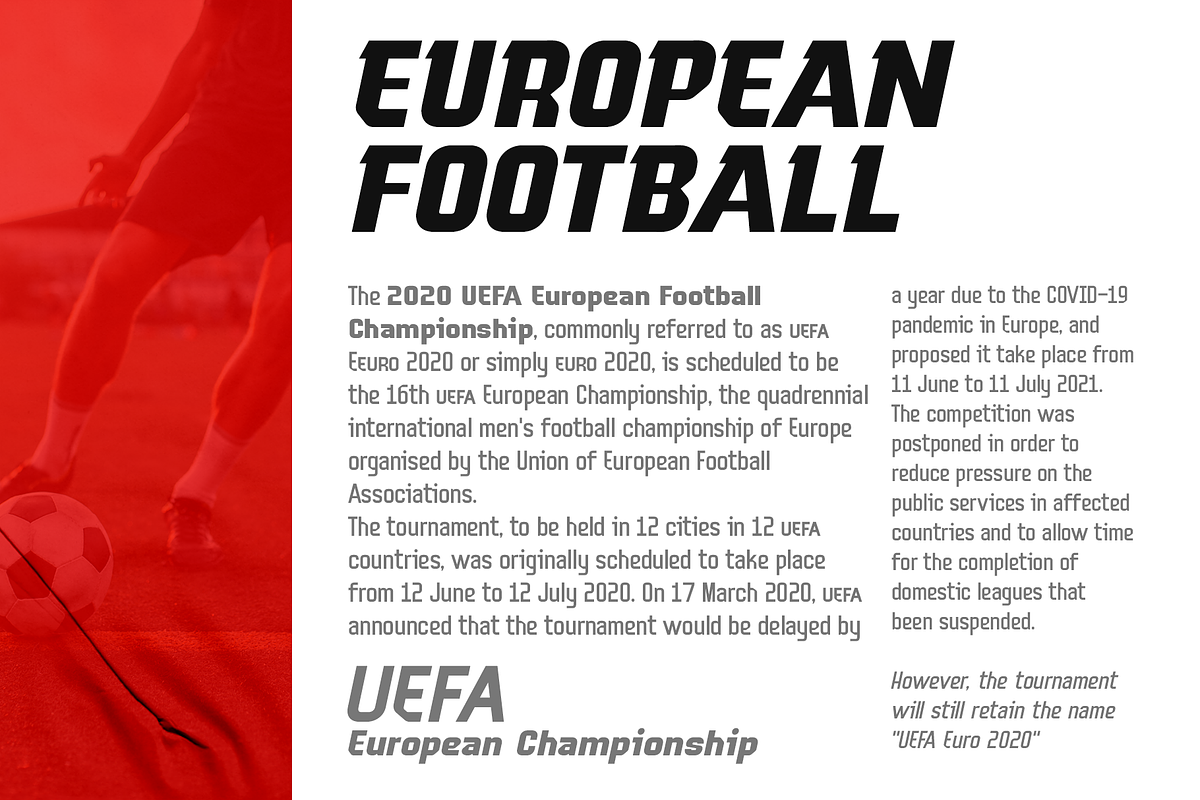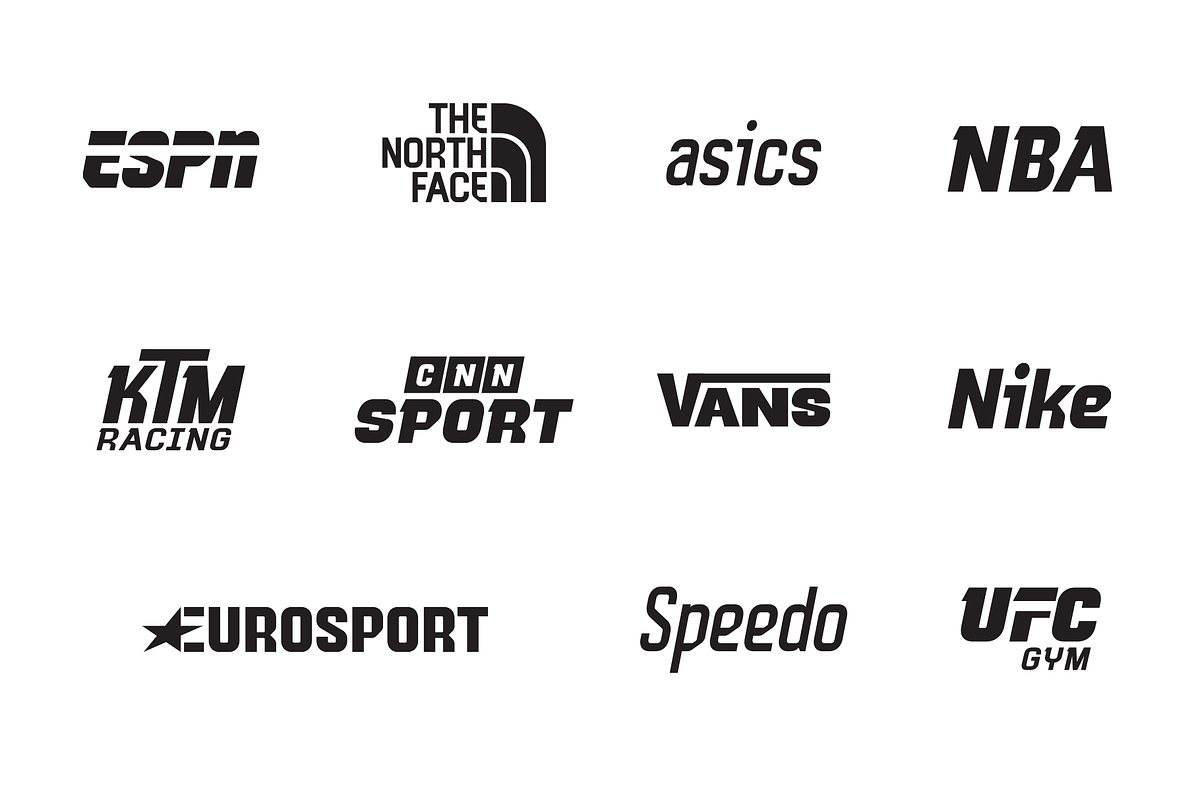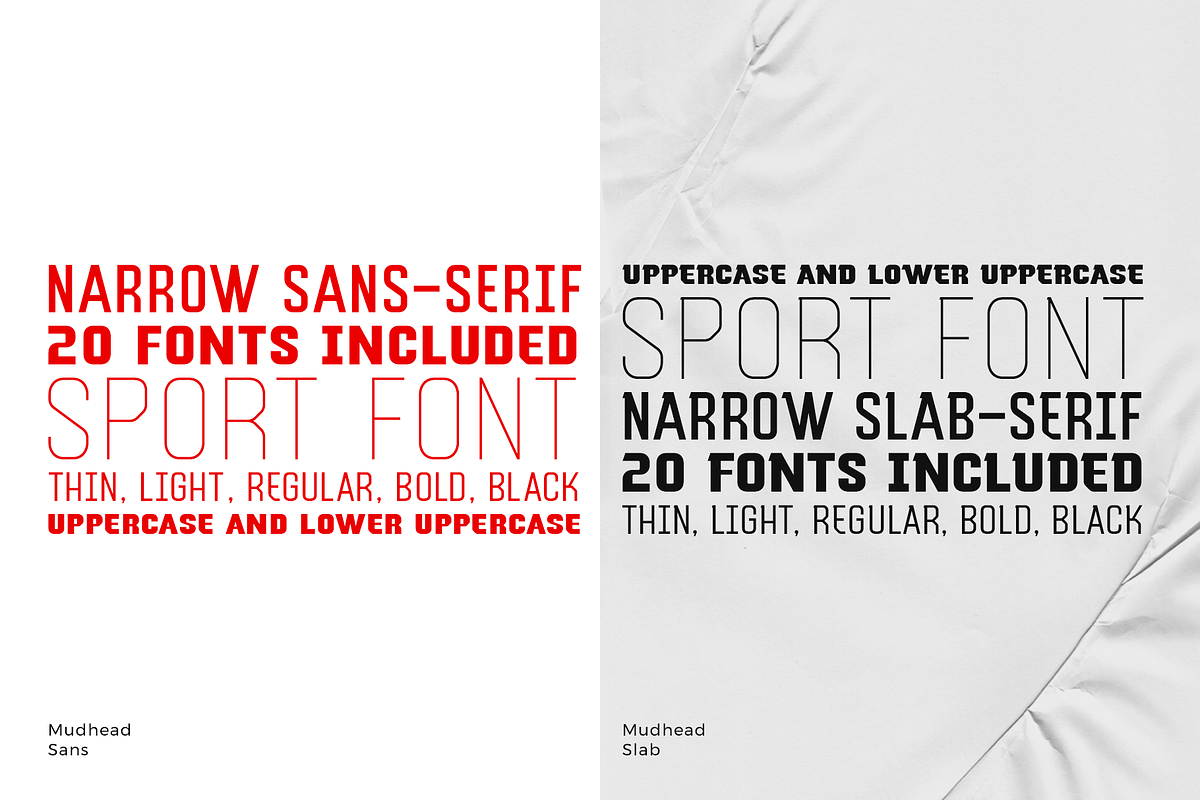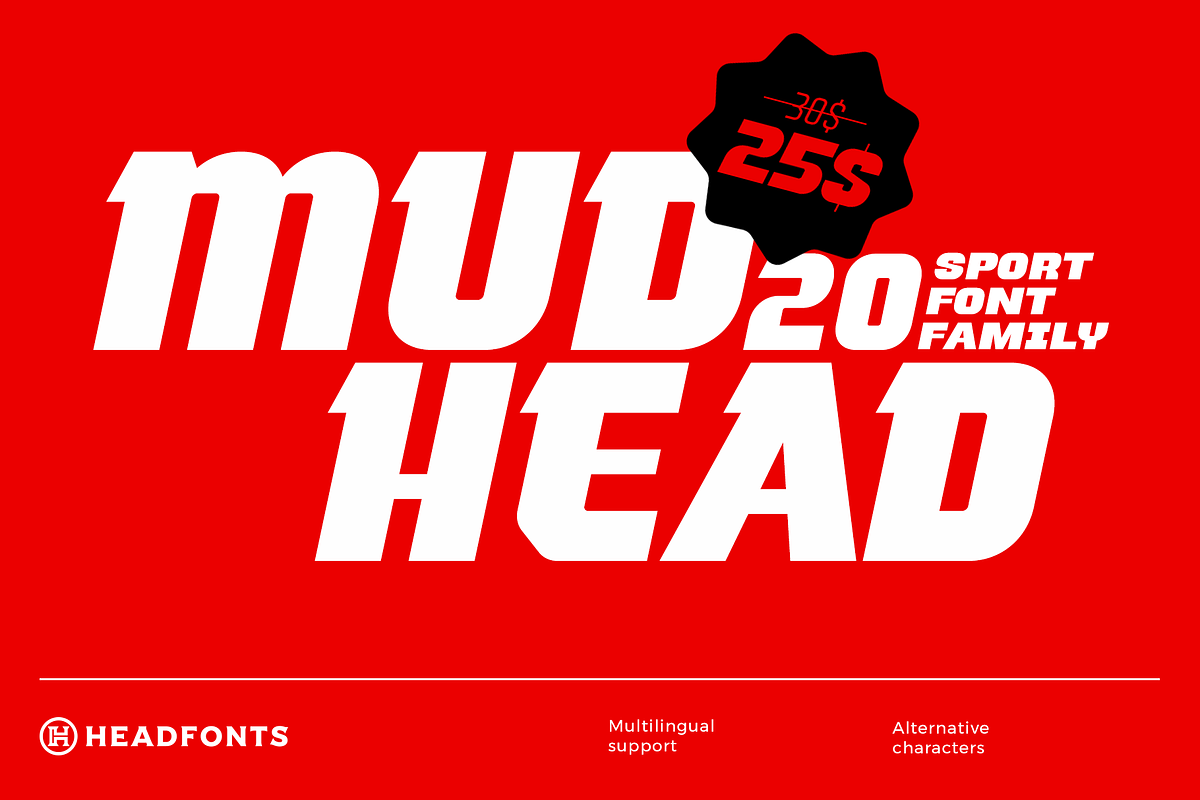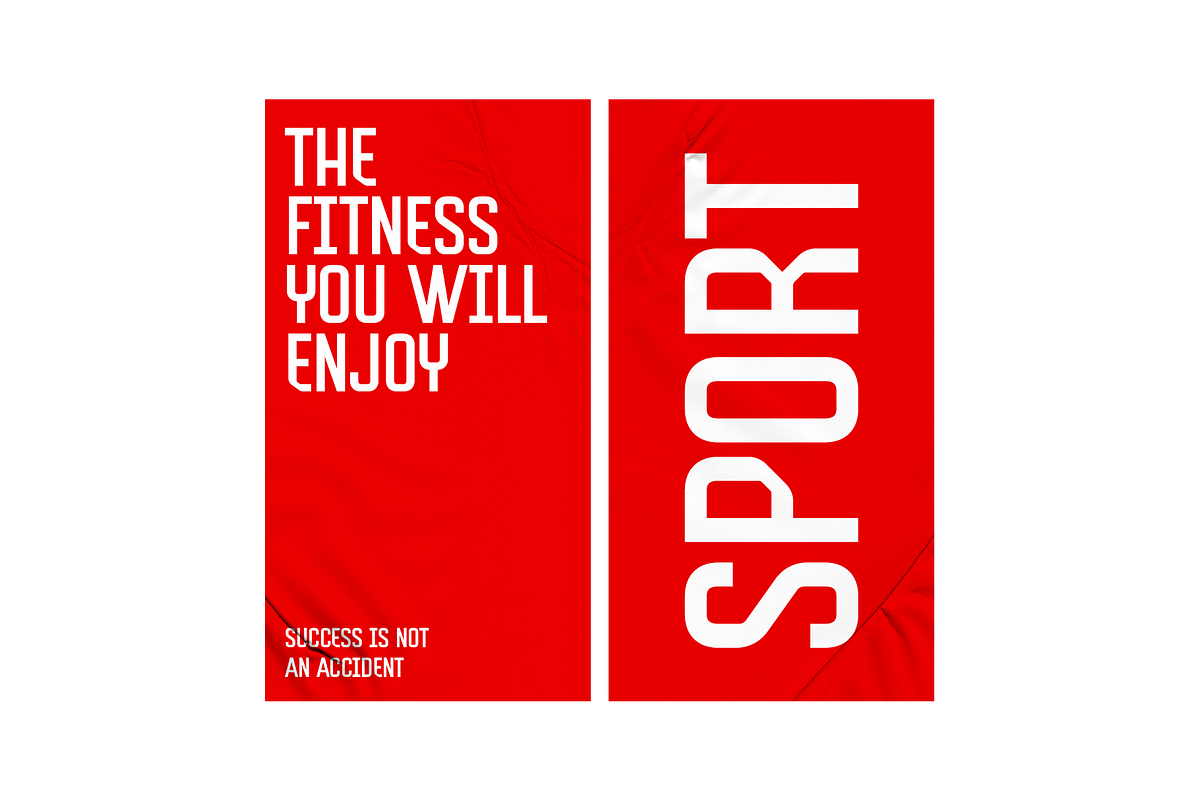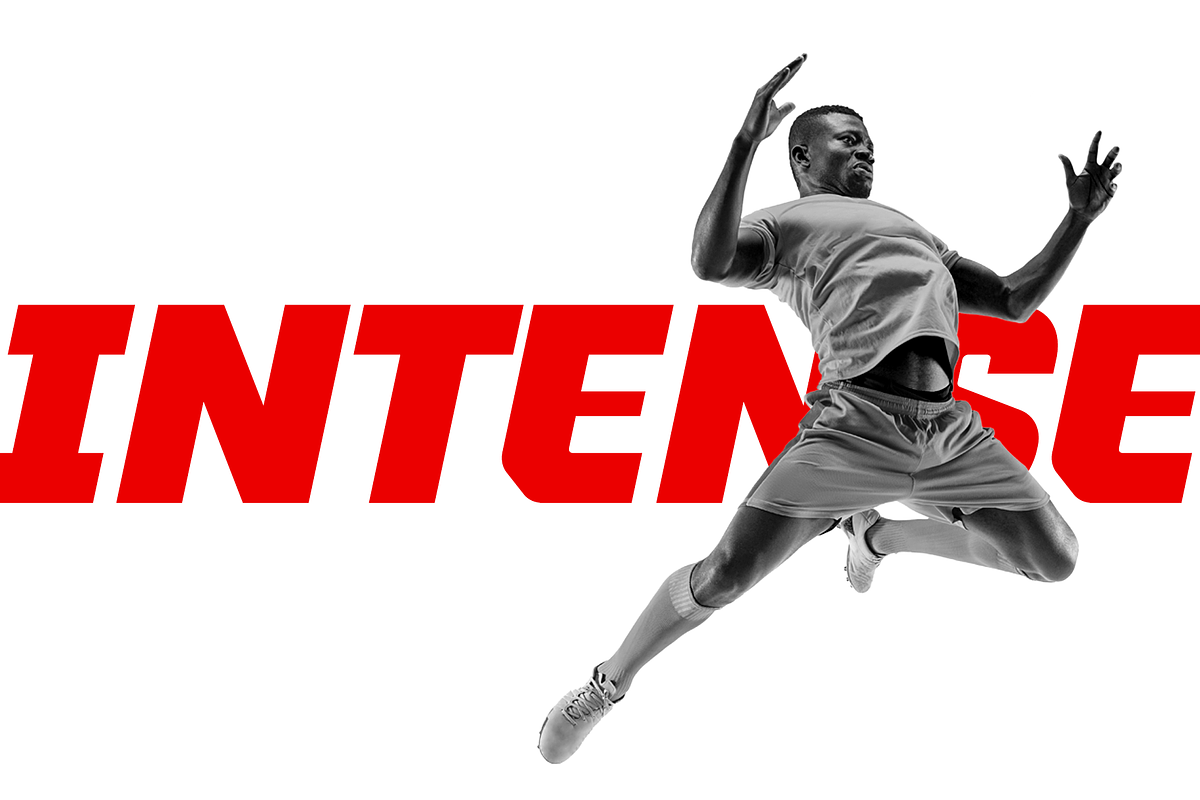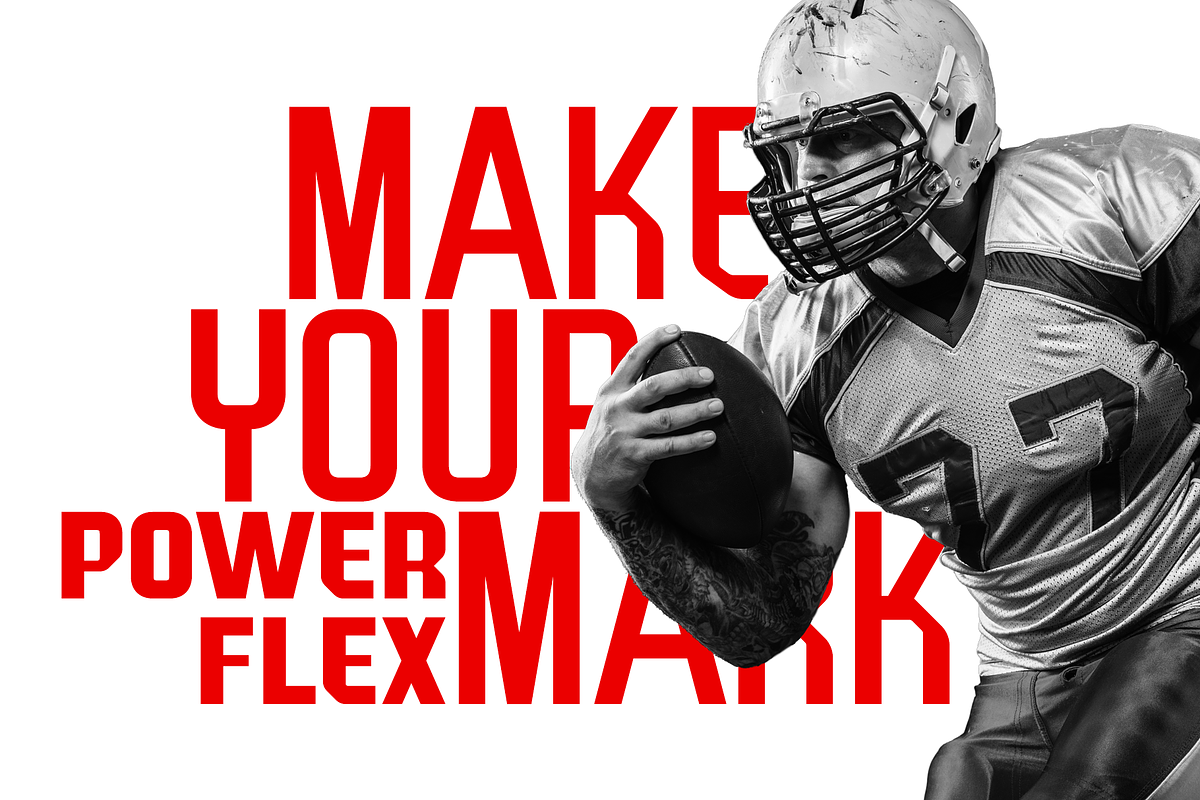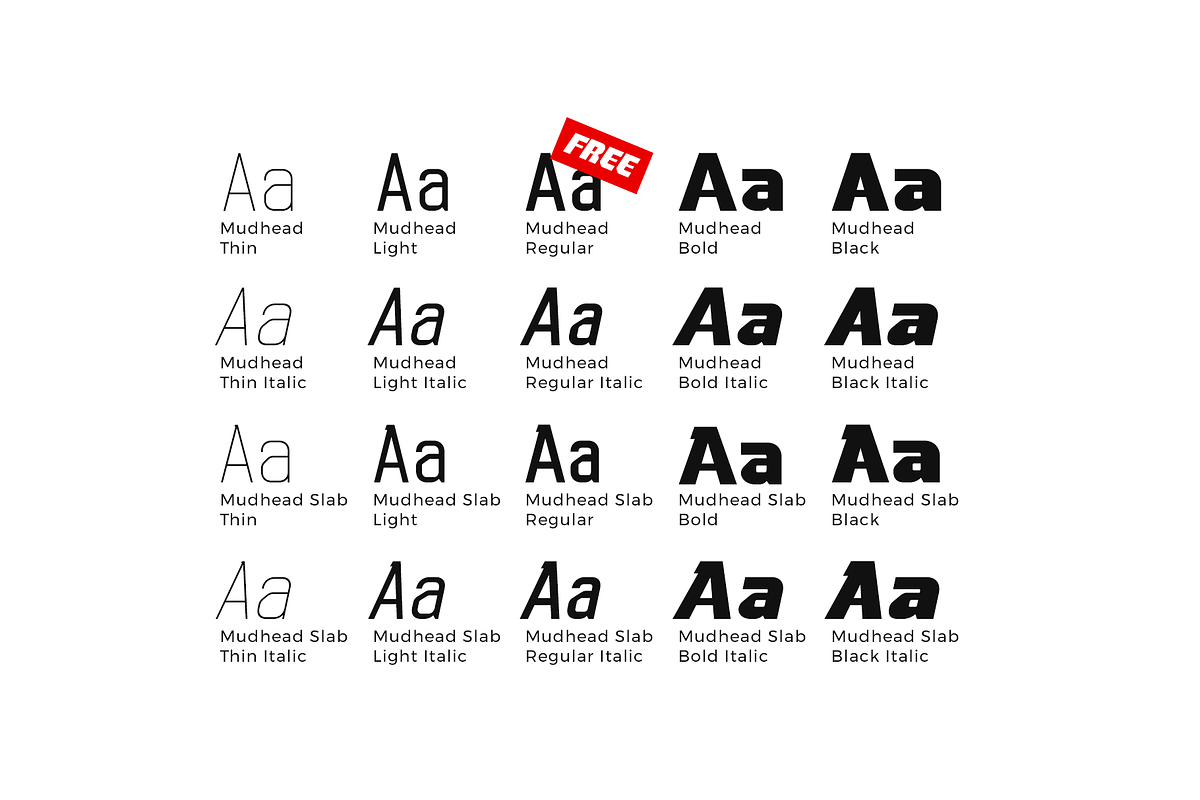
Mudhead Family | Sports Display Font
Presenting MUDHEAD, a condensed sport inspired upper and lowercase typeface. Mudhead has five weights, twentieth types, slab serif, sans serif and matching italics. This typeface has a clean and athletic look, all twenty fonts have 336 glyphs and extensive Latin script support. Mudhead is bold, vibrant with sharp slab serifs and competitive appearance, therefore excellent to use for headers, logos, captions and posters, especially for the sports branding industry, but just as good for any other projects.
Extensive Latin script language support
Upper and lowercase font